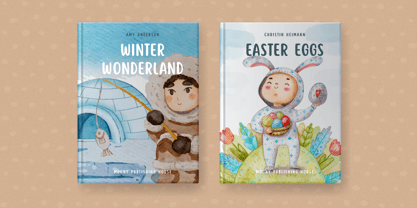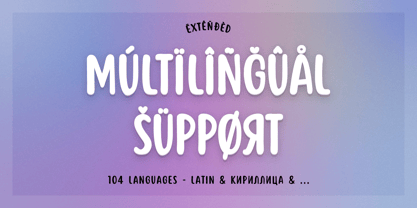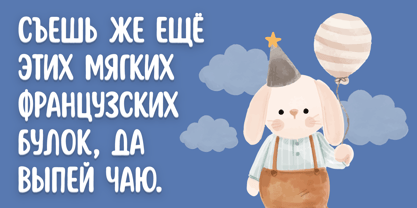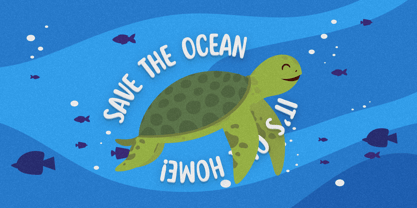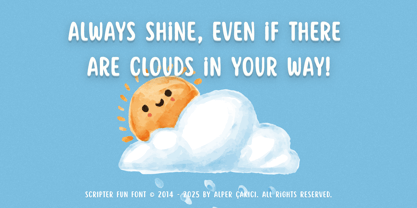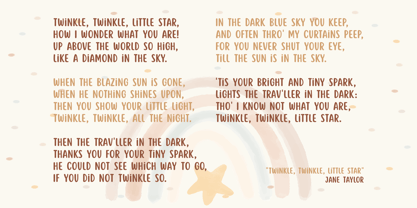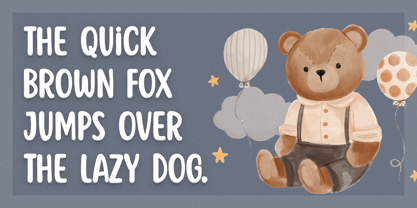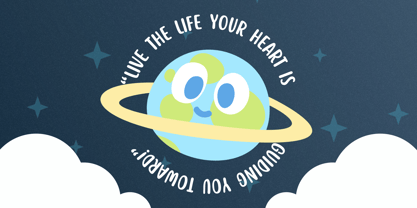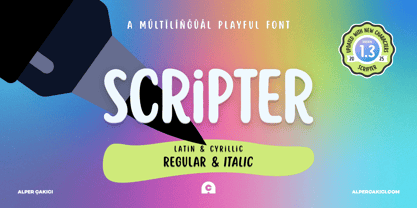
Scripter Umka
by AlperCakici
The Scripter Umka Font Family was designed by Alper Çakıcı and published by AlperCakici. Scripter Umka contains 2 styles and family package options. More about this family
Introducing a whimsical wonder in the world of fonts!
Scripter, our handmade childish font is a delightful creation, perfect for adding a playful touch to any project. With support for a whopping 104 languages, it's not just fun but also incredibly versatile.
Dive into a world of creativity with this unique and joyful font that's sure to bring a smile to your designs.